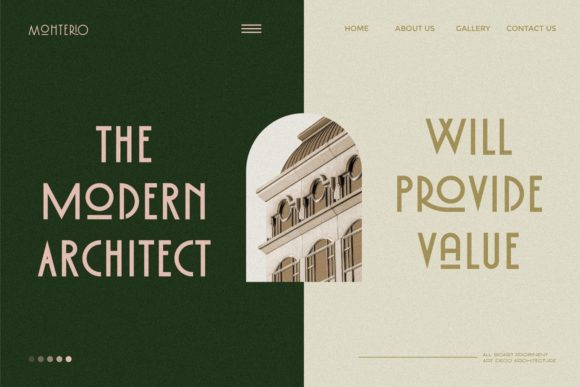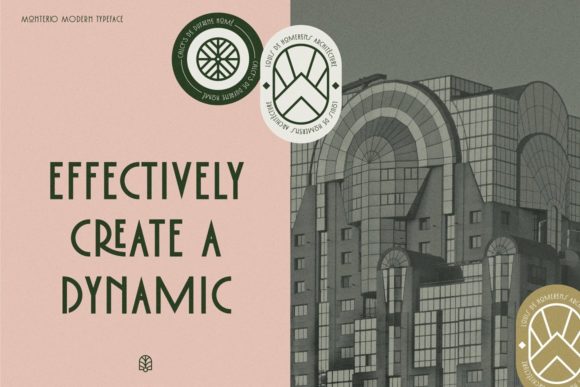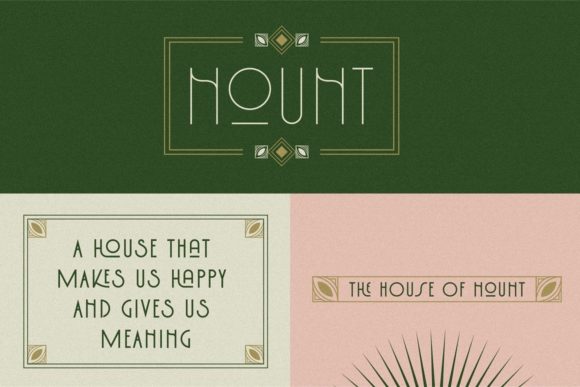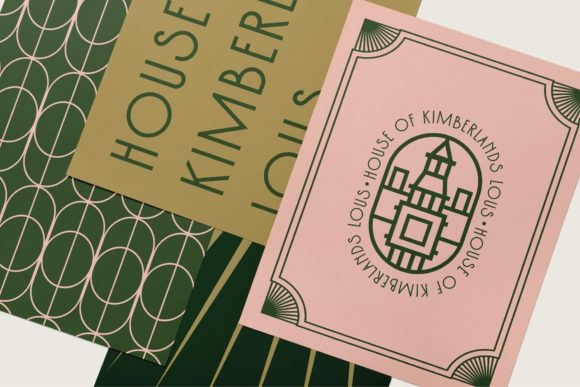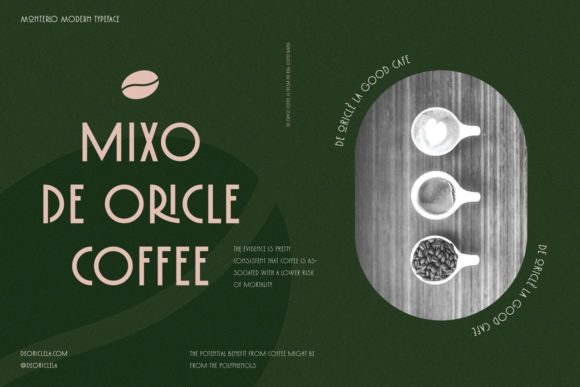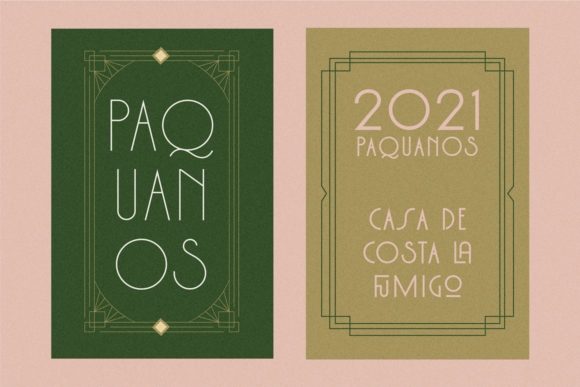
Introduction to Monterio Font
Do you remember that moment when you stumbled upon the perfect font for your creative project? The one that brought your design to life and gave it that extra oomph? For designers, finding the right font can be a game-changer. It’s like stumbling upon a hidden treasure that makes your design stand out from the crowd.
That’s exactly what the Monterio Font offers. With its all-caps sans serif contemporary Art Deco style, this font is a high-quality design resource that’s perfect for anyone looking to add a touch of classic elegance to their project. Whether you’re working on a free download or a paid design, Monterio Font is an excellent choice that’s sure to impress.
Key Features of Monterio Font
- High-quality font design suitable for creative projects and publications.
- Monterio Font’s unique characteristics include its modern and elegant design, making it perfect for use in headings, titles, and other prominent design elements.
Honest Review: Monterio Font
As a designer, I’m always on the lookout for high-quality design resources to elevate my creative projects. Recently, I stumbled upon the Monterio Font, and I’m excited to share my thoughts on this beautiful font.
- ✨ Unique and elegant design: The Monterio Font features a beautiful, modern design that’s perfect for creating eye-catching typography. The font is highly versatile and can be used for a wide range of creative projects.
- ✨ Transparent background: One of the standout features of this font is its transparent background, which makes it easy to use in various design contexts.
- ⚠️ Limited font weights: The Monterio Font currently only offers a limited number of font weights, which may not be sufficient for some design projects.
- ⚠️ Not suitable for small text: Due to its elegant design, the Monterio Font may not be the best choice for small text or body copy.
Overall, I’m impressed with the Monterio Font’s high quality and versatility. While it may have some limitations, it’s a valuable addition to any designer’s toolkit. The fact that it’s a free download is a definite plus. I’d highly recommend the Monterio Font for any creative project that requires a touch of elegance and sophistication.
Introduction to Monterio Font
Monterio Font is a high-quality design resource perfect for creative projects that require a unique and elegant touch. This versatile font features a transparent background, making it easy to incorporate into various designs.
Getting the Most Out of Monterio Font
For optimal results, use Monterio Font in conjunction with a high-quality image or design element. Experiment with different font sizes, colors, and styles to create a unique look.
Monterio Font is ideal for:
- Blog posts and articles